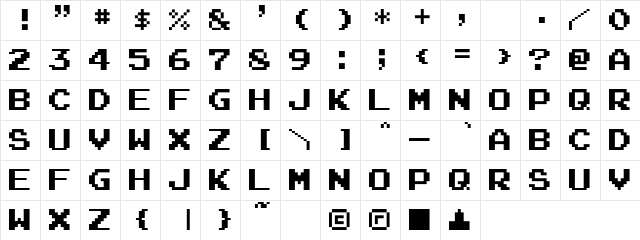
Arcade N
Design Context for Arcade Typeface
Arcade takes a measured approach to typography — its balanced proportions and neutral character make it a reliable workhorse for both digital and print work.